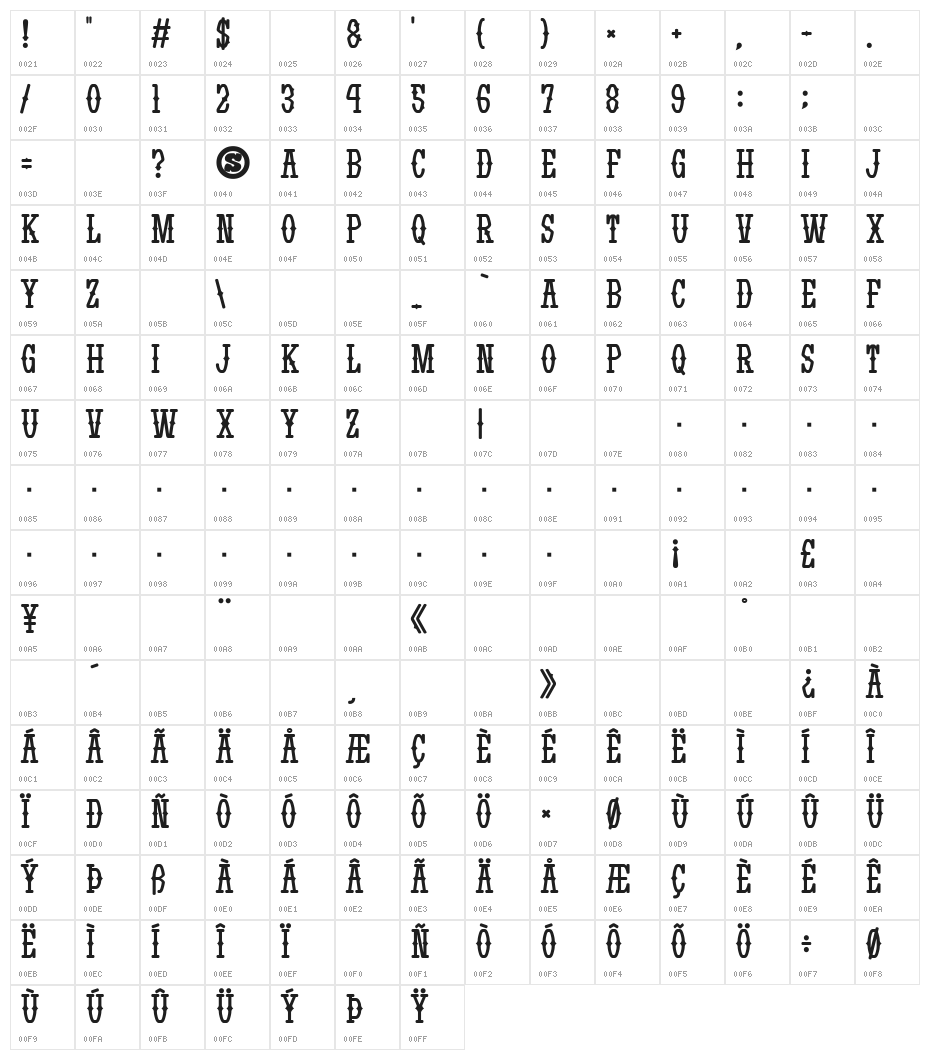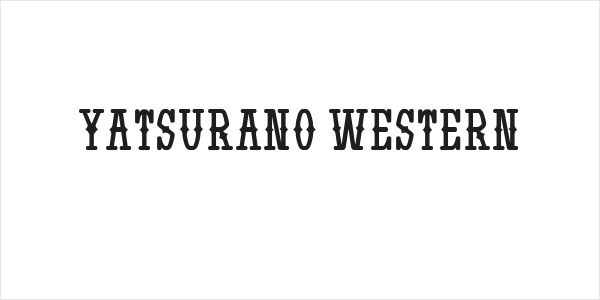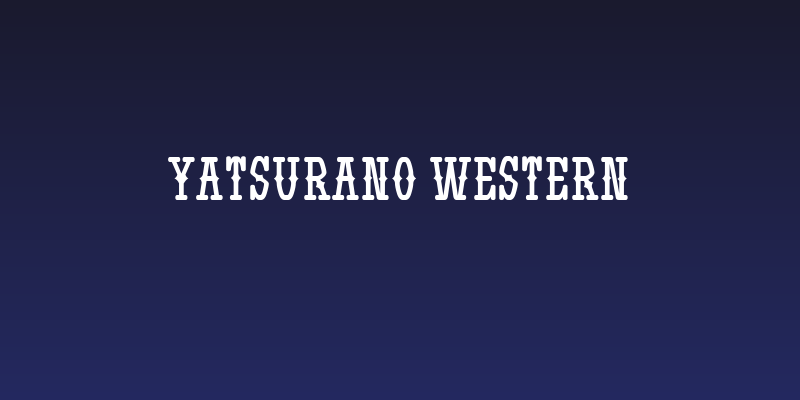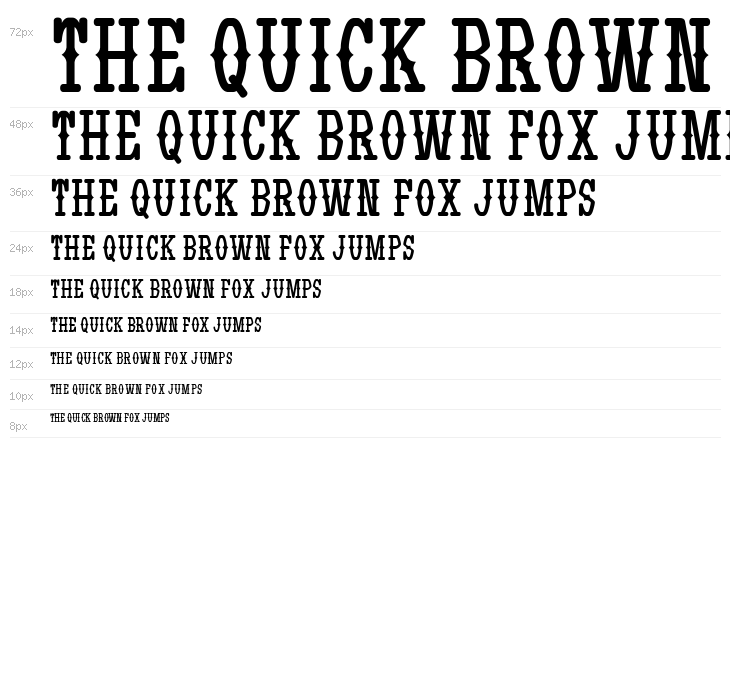
Yatsurano Western Font
Yatsurano Western Description
This font features a bold, decorative style with a distinctly Western flair. The characters are designed with a strong presence, featuring thick strokes and unique serifs that give them a rugged, vintage look. The uppercase letters are particularly striking, with a uniform height and width that create a cohesive appearance. The lowercase letters maintain the same boldness, ensuring readability while adding a touch of elegance. The numbers and special characters are crafted to match the overall aesthetic, making them suitable for a variety of design applications. The font's distinctive style is reminiscent of old Western signage, making it ideal for projects that require a touch of nostalgia and character.
| Proposed Projects | Ideal for posters, branding, signage, and any project requiring a vintage Western theme. |